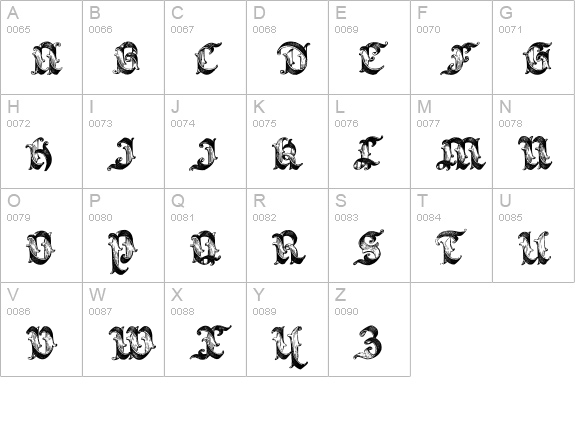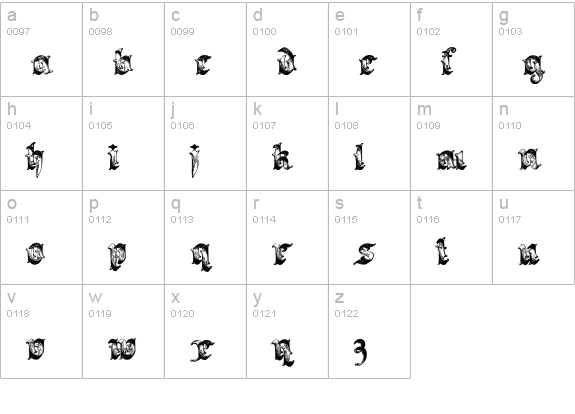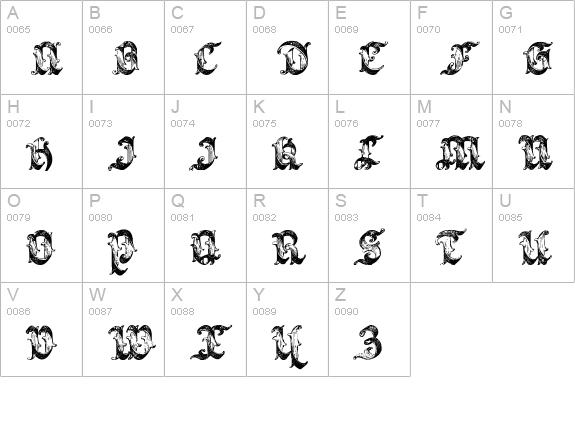
Saraband Lettering Font Details
Saraband Lettering font is a stunning display typeface that captures the essence of elegance and sophistication. With its intricate details and beautifully crafted letterforms, this font is the perfect choice for adding a touch of luxury to any design project. The flowing curves and delicate strokes of Saraband Lettering create a sense of graceful movement, making it ideal for logos, branding, invitations, and more. Its versatility allows it to be used in both traditional and modern designs, adding a unique and timeless appeal. One of the most enticing aspects of Saraband Lettering font is that it is free to use. Yes, you read that right! This exceptional font is freely available to download at FontsMarket.com, making it accessible to designers and creatives from all walks of life. Whether you're a professional designer or a hobbyist, you can now elevate your projects with this exquisite font without any cost. Not only does Saraband Lettering font offer a high-quality design, but it also provides a wide range of characters, including uppercase and lowercase letters, numbers, punctuation marks, and special glyphs. This extensive character set ensures that you have everything you need to create stunning and visually appealing designs. Furthermore, Saraband Lettering font is incredibly easy to use. It is compatible with various design software programs, such as Adobe Photoshop, Illustrator, and InDesign, allowing for seamless integration into your creative workflow. So, whether you're designing a logo, a poster, or a website, this font will effortlessly enhance your work and make it stand out. In conclusion, Saraband Lettering font is a free, elegant, and versatile typeface that will elevate your designs to new heights. Its intricate details, graceful curves, and extensive character set make it a must-have for any designer. Download Saraband Lettering font today from FontsMarket.com and let your creativity soar.